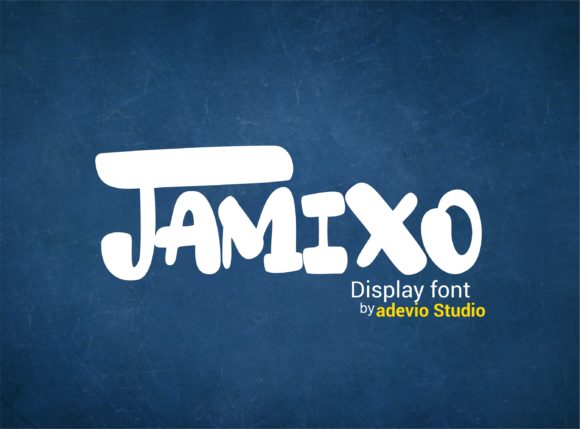
Journey into the realm of visual enchantment with Jamixo Font, the captivating creation of adevio27. A display font that dances with charm and playfulness, Jamixo Font is designed to transform your creative visions into captivating masterpieces.
Immerse yourself in the boundless possibilities of Jamixo Font, meticulously crafted to elevate your Instagram posts, DIY projects, and any artistic endeavor you embark upon. With its amicable and inviting personality, Jamixo Font effortlessly breathes life into your words, turning them into vibrant expressions of your creativity.
Beyond its undeniable aesthetic appeal, Jamixo Font possesses an arsenal of practical advantages. Its remarkable legibility, even at smaller sizes, ensures that your messages are conveyed with clarity and impact. Whether you're crafting captivating social media posts, designing eye-catching invitations, or creating personalized artwork, Jamixo Font ensures your creations leave a lasting impression.
But what truly sets Jamixo Font apart is its versatility. With a range of styles from regular to bold, Jamixo Font adapts seamlessly to your diverse design needs. Whether you seek a font that exudes playful charm, sophisticated elegance, or anything in between, Jamixo Font effortlessly transforms to match your vision.
Unleash your creativity with Jamixo Font and embark on a journey of artistic exploration. Its user-friendly nature makes it accessible to designers of all skill levels, allowing you to effortlessly create stunning visuals that captivate and inspire.